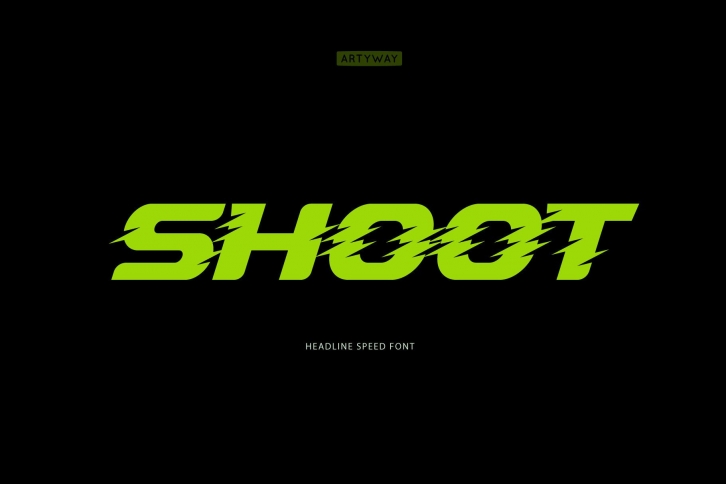
Shoot is a modern and dynamic display font. Its sporty and fresh style is perfect for a wide pool of design ideas. Add it confidently to your projects and you will love the results.